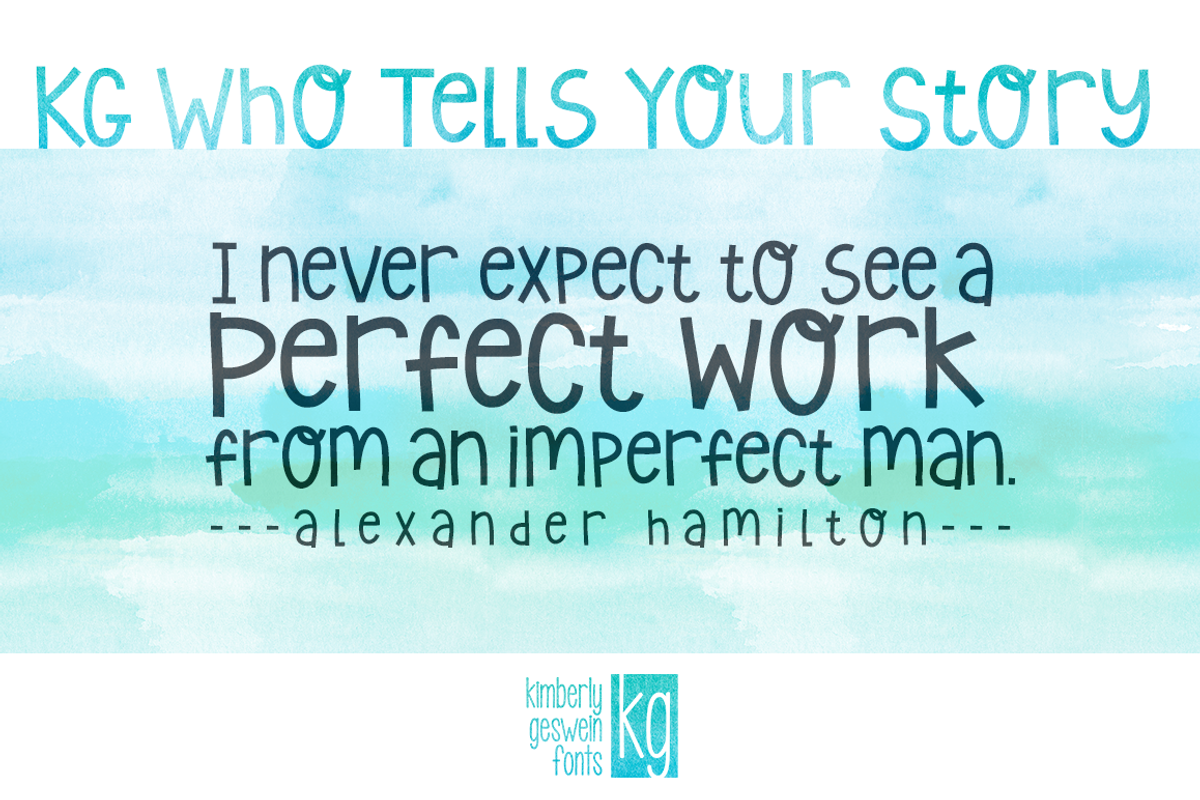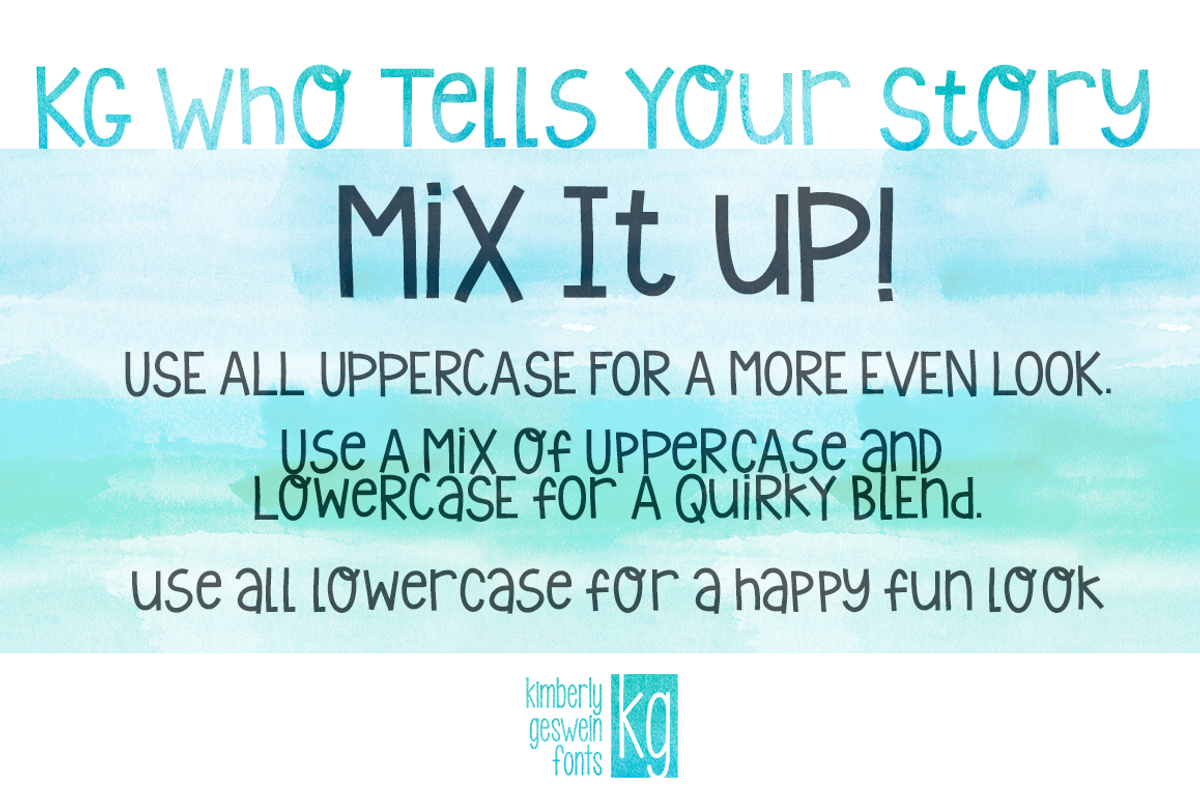
KG Who Tells Your Story
KG Who Tells Your Story by Kimberly Geswein Fonts is a font selected for branding, posters, packaging, typography.
- Intended to be used as all capital letters together, all lowercase together, or a mix for a super playful look.
Why KG Who Tells Your Story is worth a look
KG Who Tells Your Story by Kimberly Geswein Fonts fits naturally into Branding, posters, packaging, typography.